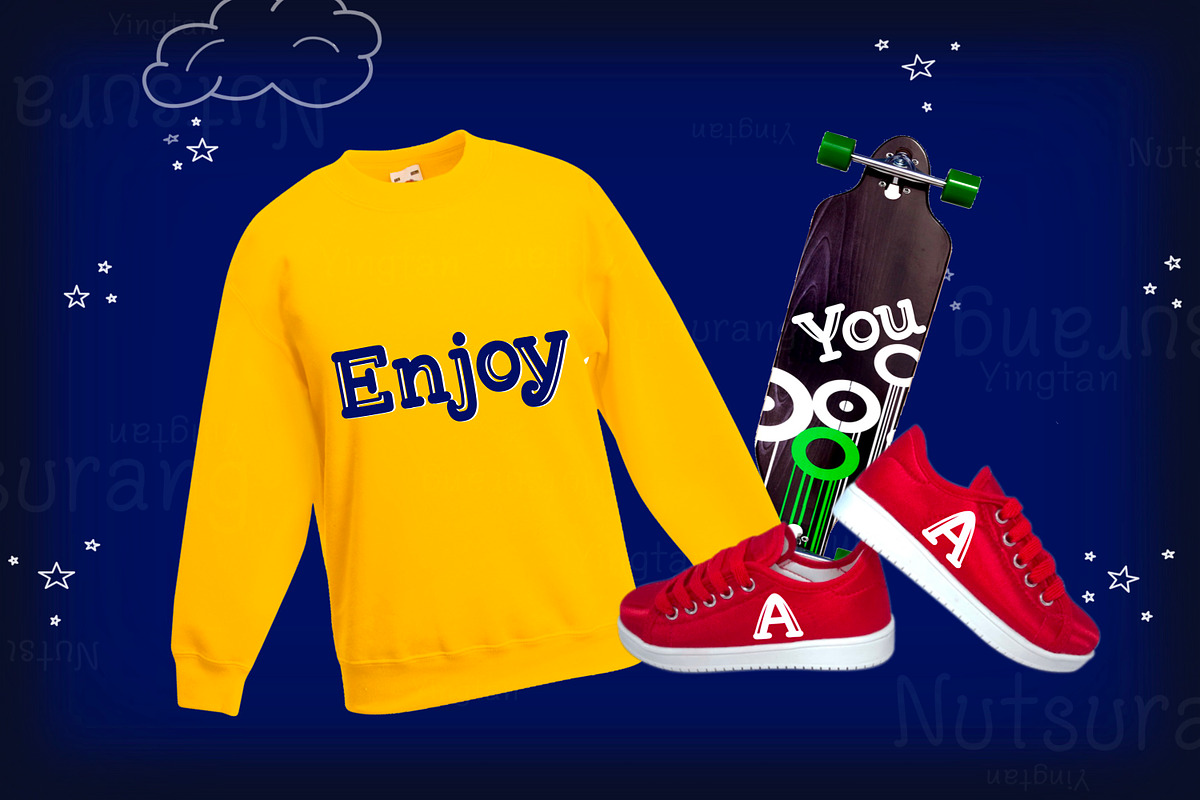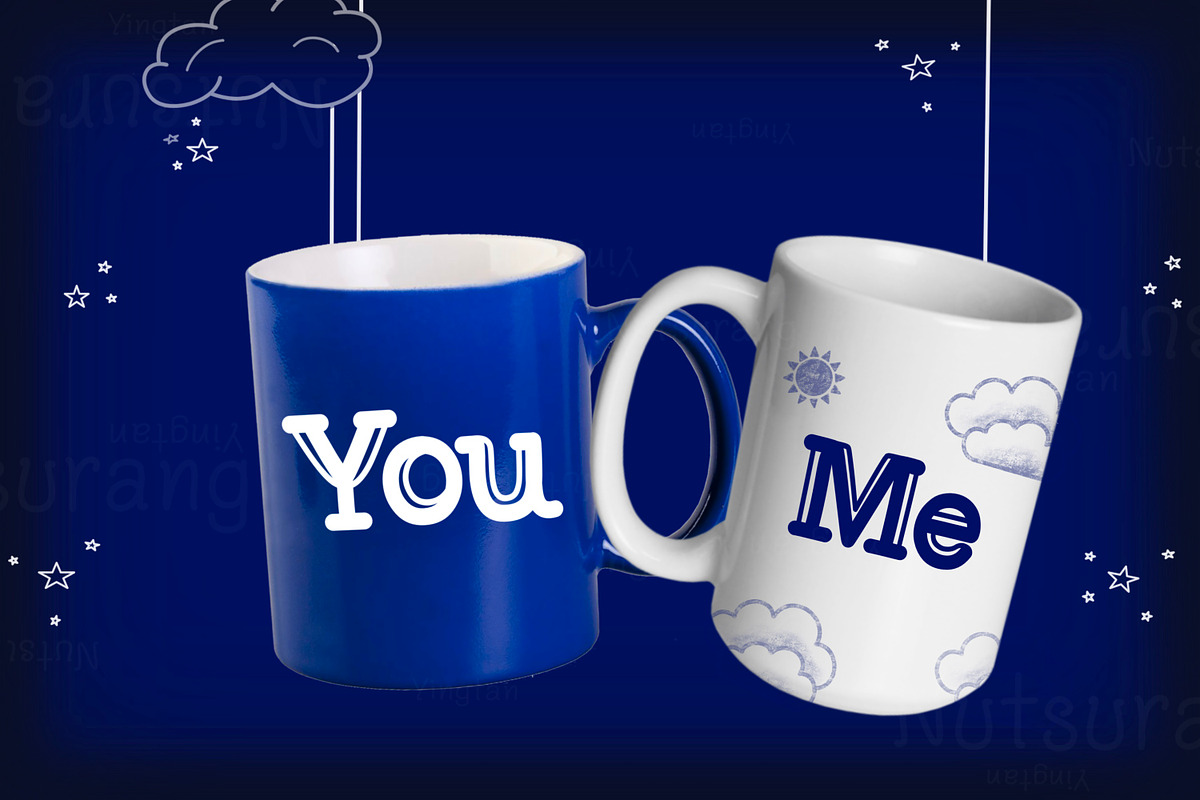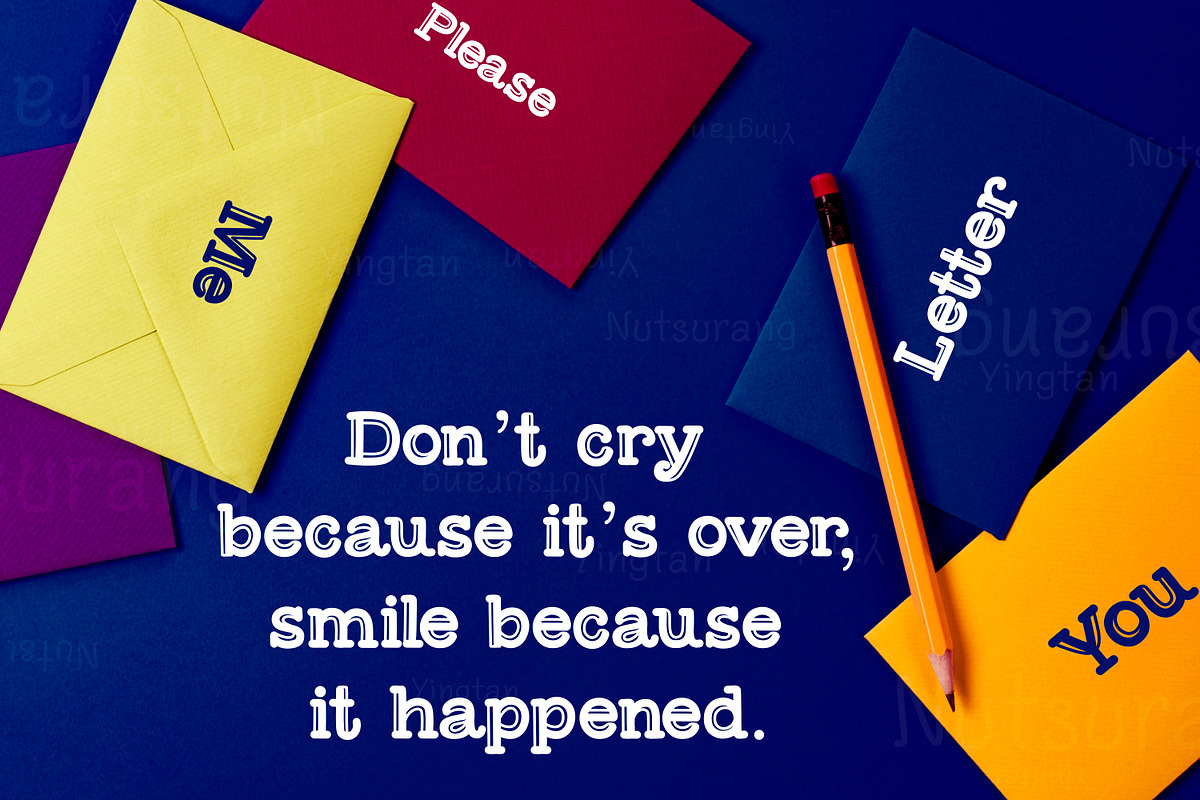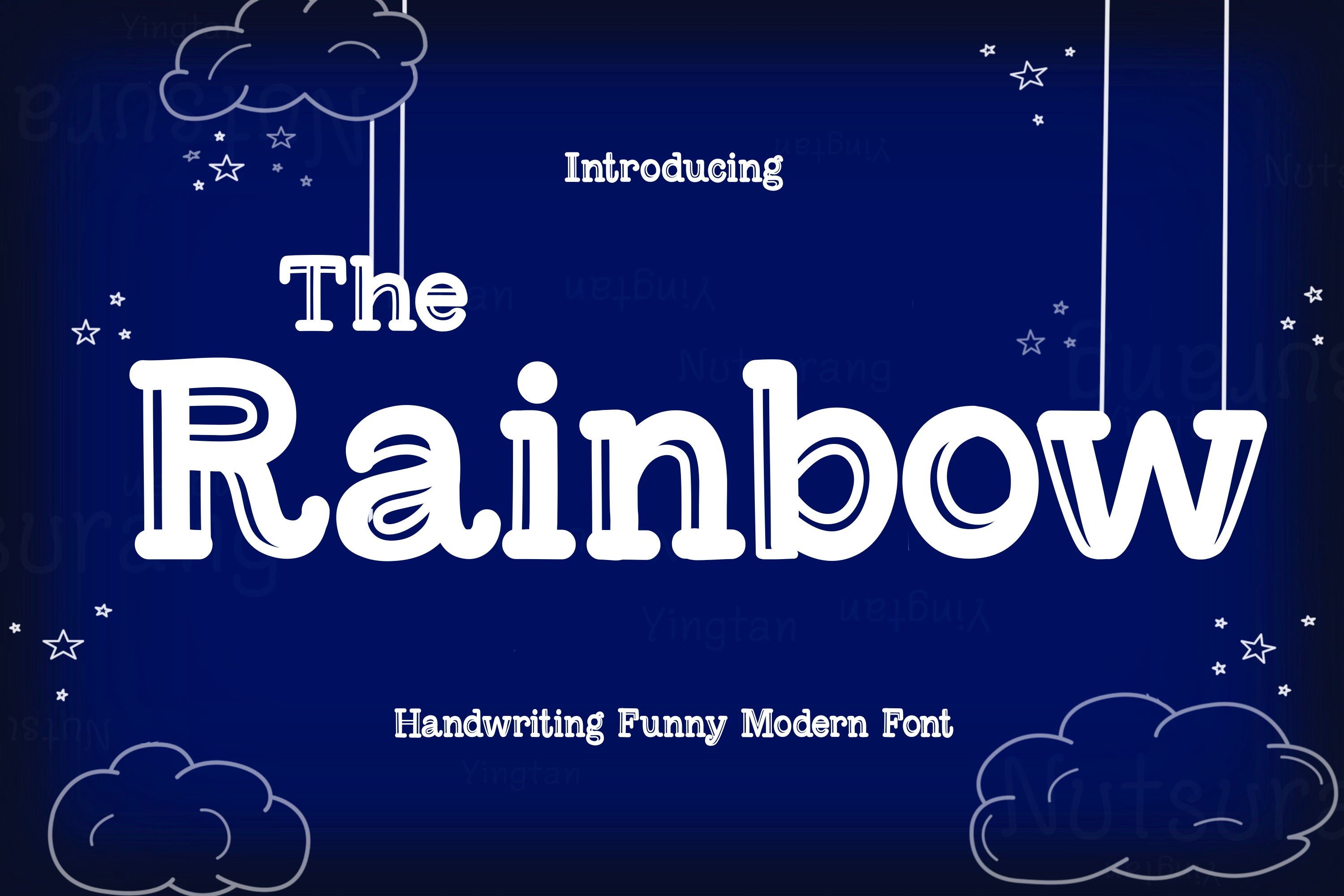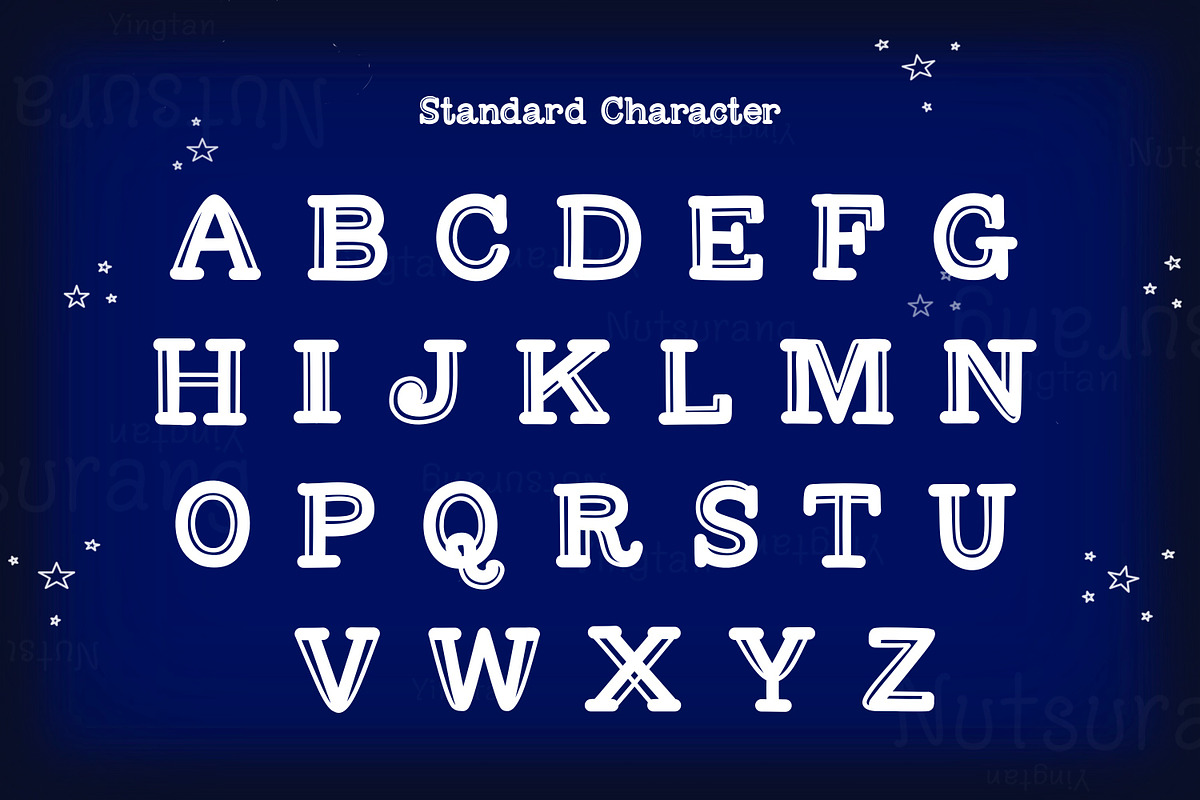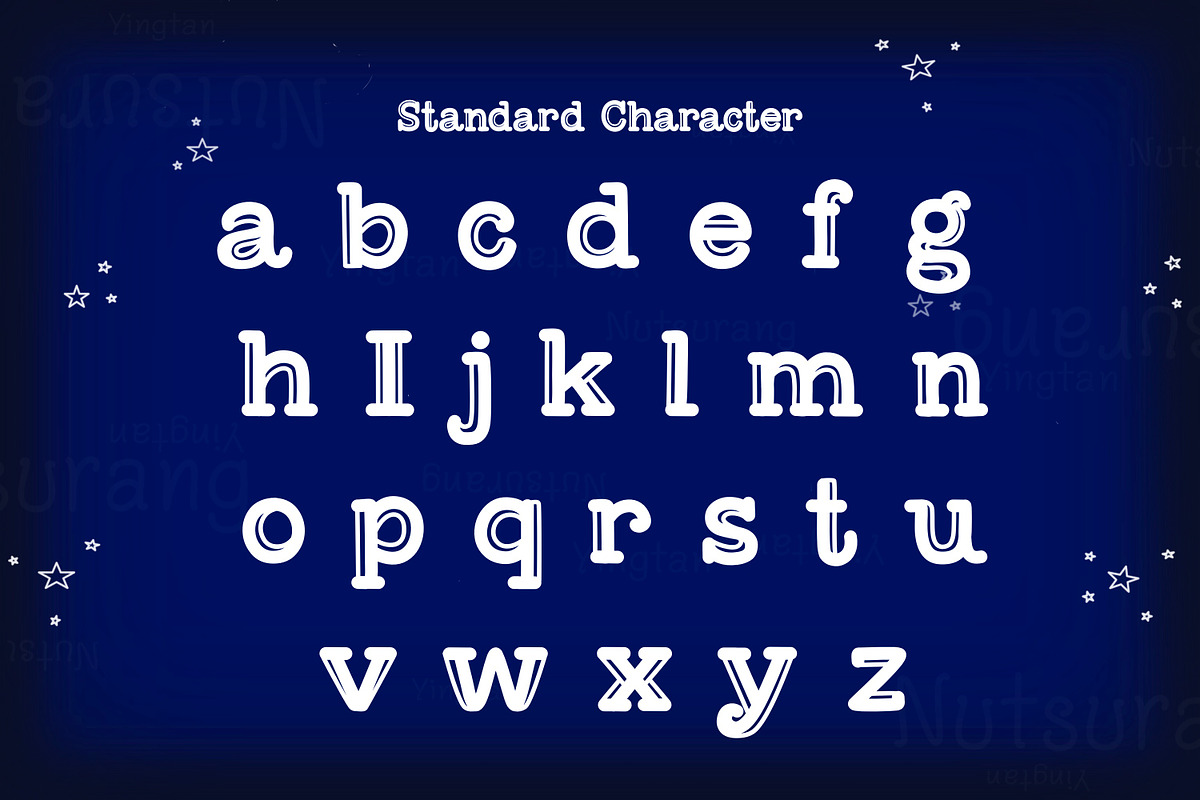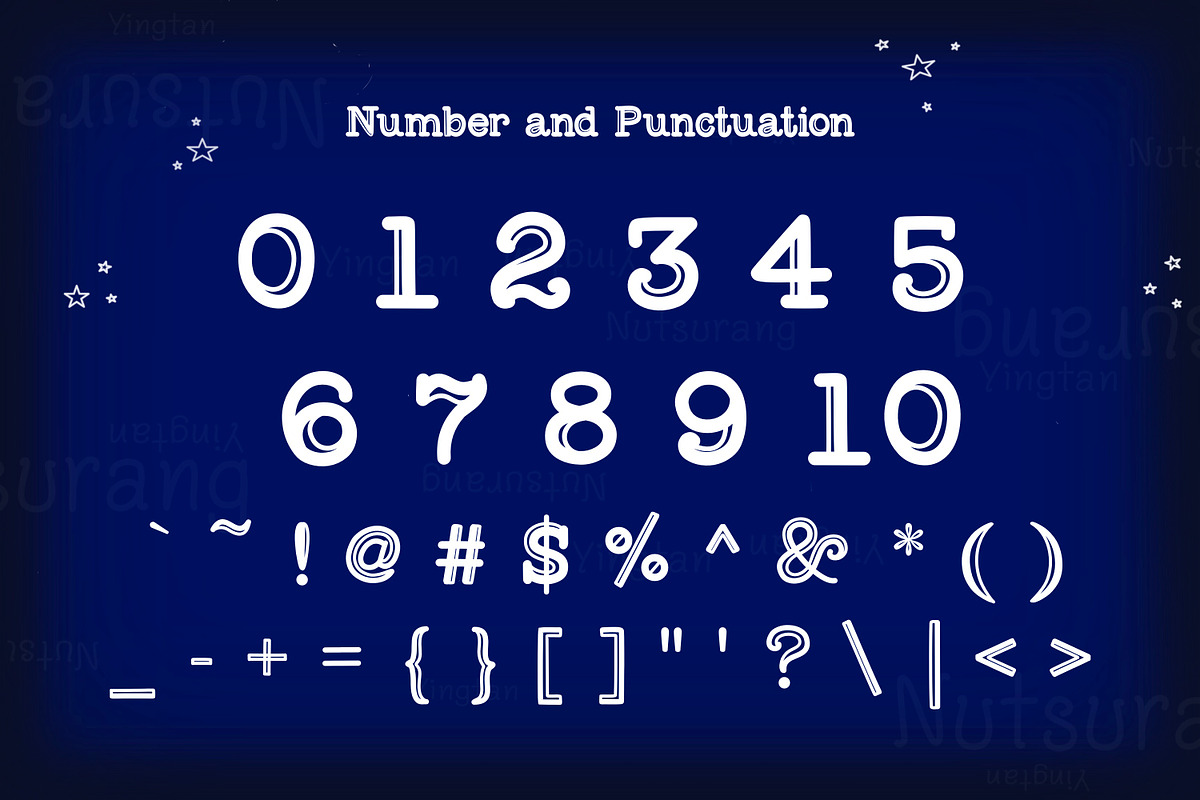
The Rainbow Fonts
Use the fonts for: logos, branding, wedding invitations, farmhouse decor, farmhouse signs, mugs, shirts, pantry labels, stickers, business cards, greeting cards, posters, social media, planner prints and websites.